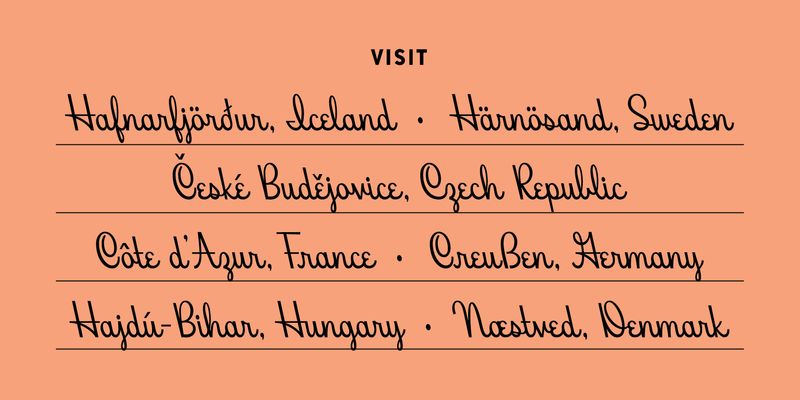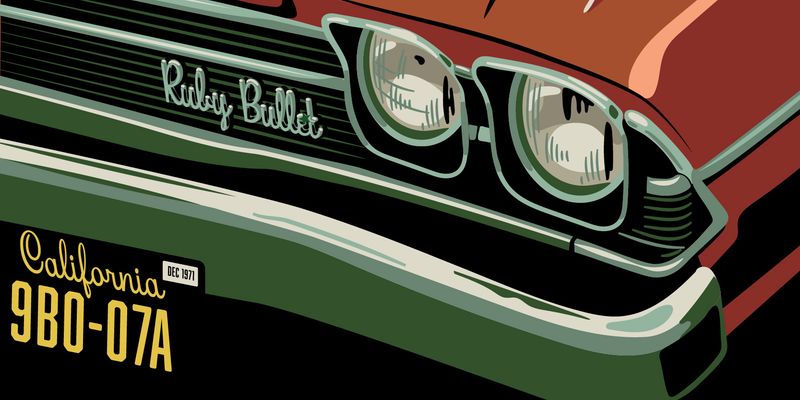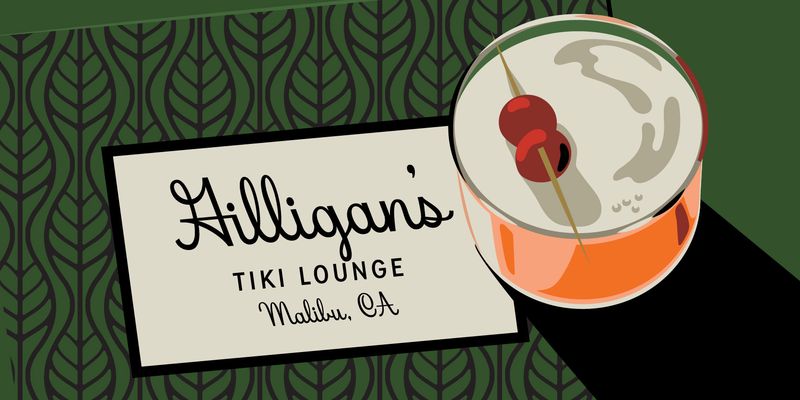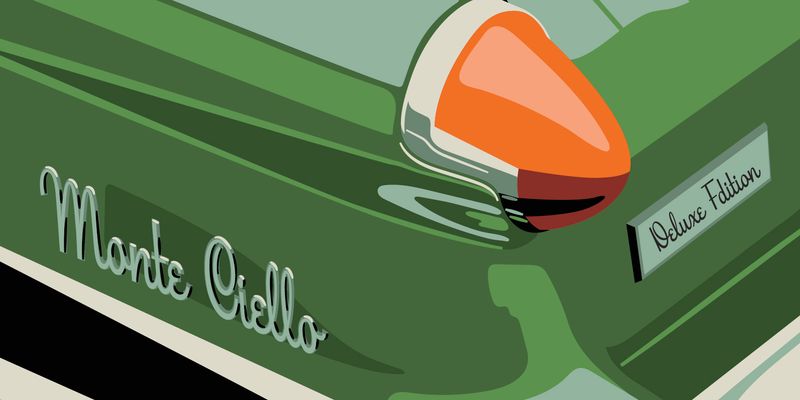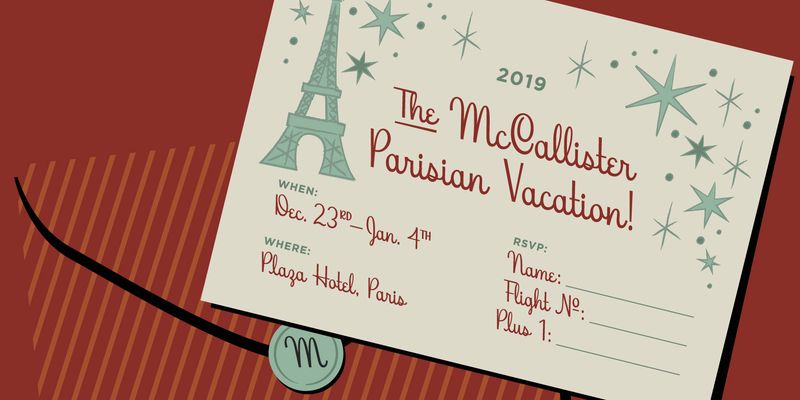
Beverly Drive is a left-leaning script font from Hoodzpah, Inc. inspired by Beverly Hills: from the posh Rodeo shop signs, to the kitschy apartment complex logos. This midcentury modern script features a low x-height, exaggerated cap heights, and stylistic and contextual alternates. Check out Beverly Drive Right, the right-leaning sister font.
Hoodzpah is a Southern California based brand identity and type design studio founded by Amy and Jennifer Hood. Specializing in personality-driven display typefaces, Hoodzpah has never been accused of being minimal.